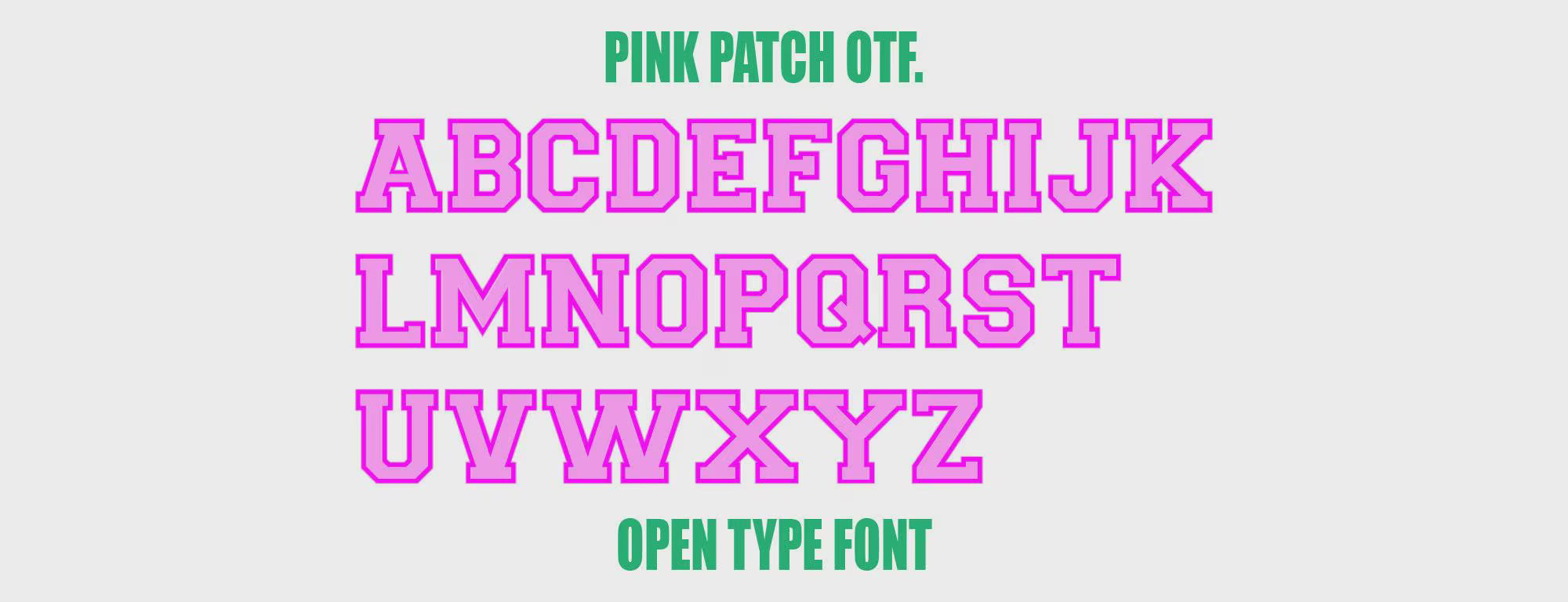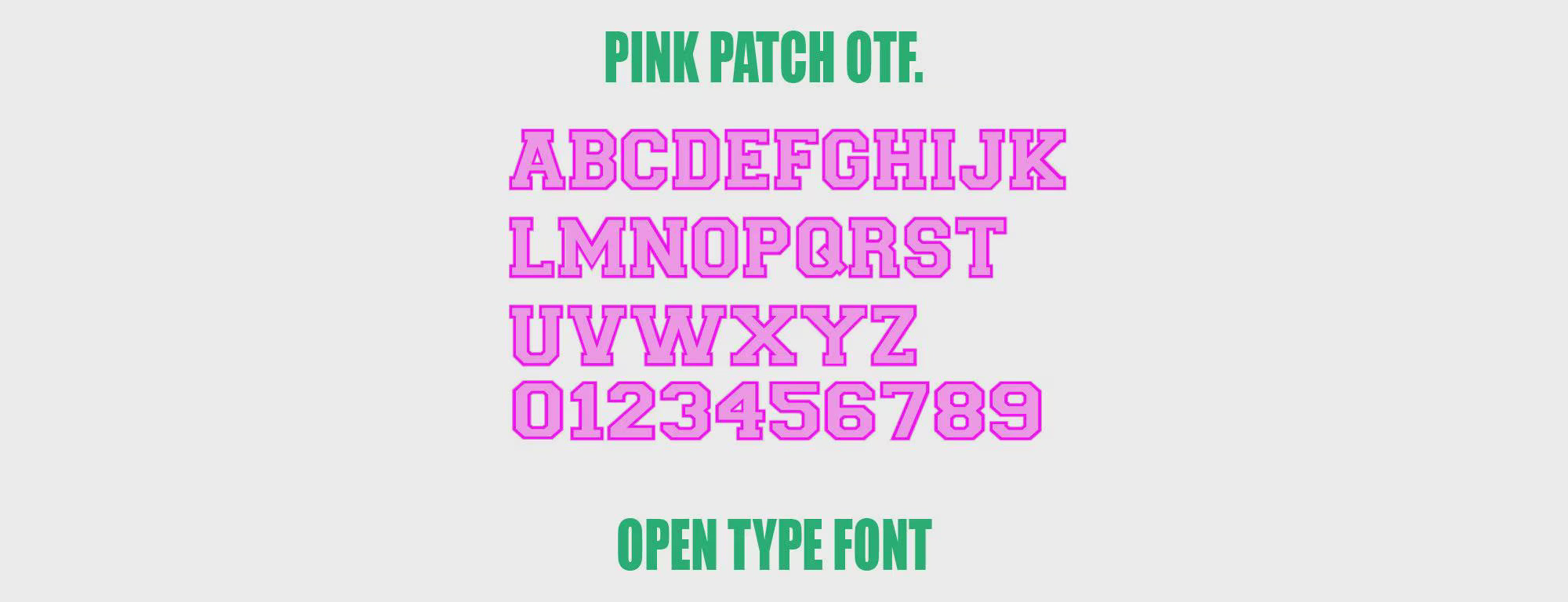
Shadow Patch Font Pink Patch .Otf Bundle + Bonus Coffee Cup Monogram Frame
Includes PINK PATCH FONT IN OTF. FORMAT ONLY LETTERS A-Z and number 0-9, no other symbols
This font types out automatically in Hot Pink & Pink for PINK LOVERS :)